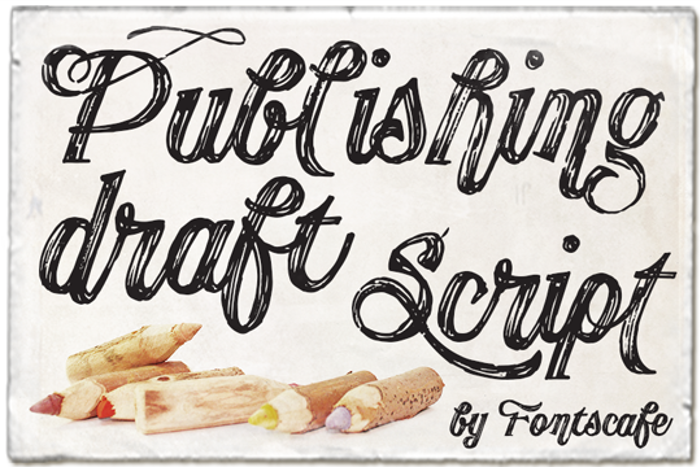
Publishing Draft Script Font
A mix of vintage-contemporary style that converges with the plots and designs that only nature can offer where seas, forests, jungles, and even, the exuberance and wild touch of the animal world are present, this and more is our "Publishing Draft Script"!
A handmade drafted script with 105 variations, between alternatives and swashes, plus 32 exclusive stylistic Ligatures that encourage the evocation of the nature in any of its forms.
Organic products, vegan plates and healthy concepts are perfectly introduced with an elegant handmade touch.